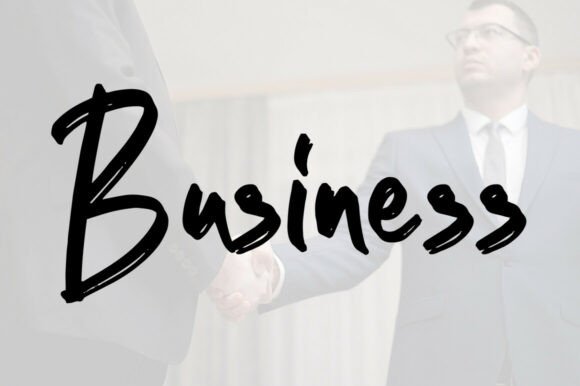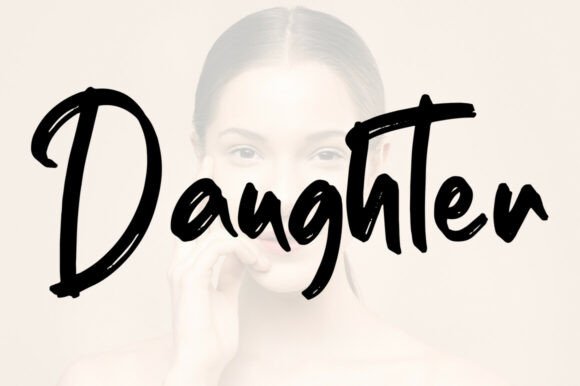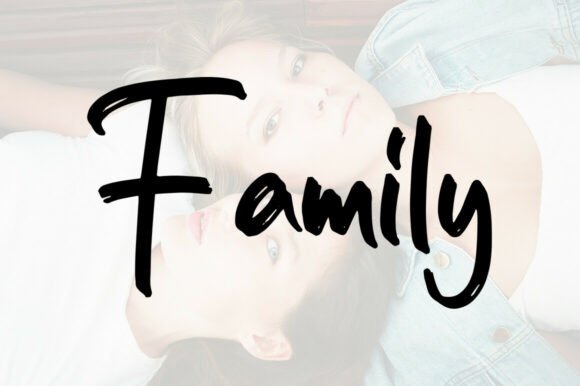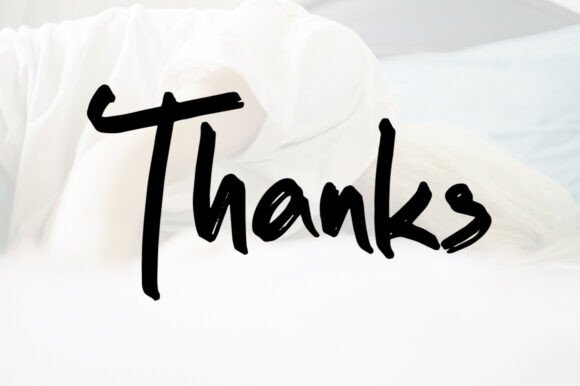
Cochella Font: The Ultimate Handwritten Font for Designers and Crafters
Are you tired of using the same old fonts for your digital designs, presentations, and craft projects? Look no further than Cochella Font, a simple and friendly handwritten font that’s perfect for any occasion. In this article, we’ll dive into the features and benefits of Cochella Font, and explore how it can become your go-to font for all your design needs.
What is Cochella Font?
Cochella Font is a beautiful, handwritten font that’s designed to be both elegant and approachable. Its simple, yet charming design makes it perfect for a wide range of applications, from digital design and presentations to crafting and making greeting cards. Whether you’re a professional designer or a crafty hobbyist, Cochella Font is sure to become a favorite in your font collection.
Key Features of Cochella Font
So, what sets Cochella Font apart from other fonts? Here are some of its key features:
- Simple and Friendly Design: Cochella Font has a clean and approachable design that’s perfect for creating a warm and inviting atmosphere in your designs.
- PUA Encoded: Cochella Font is PUA (Private Use Area) encoded, which means you can easily access all the glyphs and swashes with a single font file.
- Versatile: Cochella Font is suitable for a wide range of applications, from digital design and presentations to crafting and making greeting cards.
Benefits of Using Cochella Font
So, why should you choose Cochella Font for your design projects? Here are some of the benefits of using Cochella Font:
- Adds a Personal Touch: Cochella Font’s handwritten design adds a personal touch to your designs, making them more relatable and engaging.
- Enhances Readability: Cochella Font’s clean design makes it easy to read, even at small font sizes.
- Perfect for Branding: Cochella Font’s friendly design makes it perfect for branding and marketing materials, such as logos, brochuses, and business cards.
- Saves Time: With Cochella Font’s PUA encoding, you can access all the glyphs and swashes with a single font file, saving you time and effort.
Use Cases for Cochella Font
Cochella Font is a versatile font that can be used in a wide range of applications. Here are some use cases for Cochella Font:
- Digital Design: Use Cochella Font in your digital designs, such as social media graphics, blog posts, and website headers.
- Presentations: Add a personal touch to your presentations with Cochella Font, making them more engaging and memorable.
- Crafting: Use Cochella Font in your craft projects, such as making greeting cards, scrapbooking, and DIY projects.
- Branding: Use Cochella Font in your branding materials, such as logos, brochuses, and business cards.